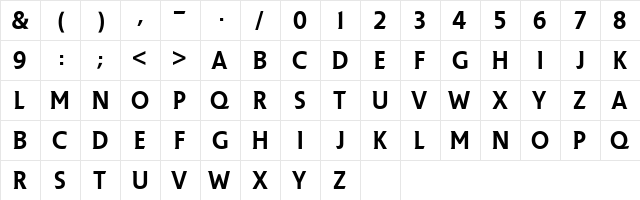
Premier League Regular
Design Context for Premier League Typeface
Premier League is a composed and adaptable typeface that performs quietly and consistently across a wide range of design contexts.